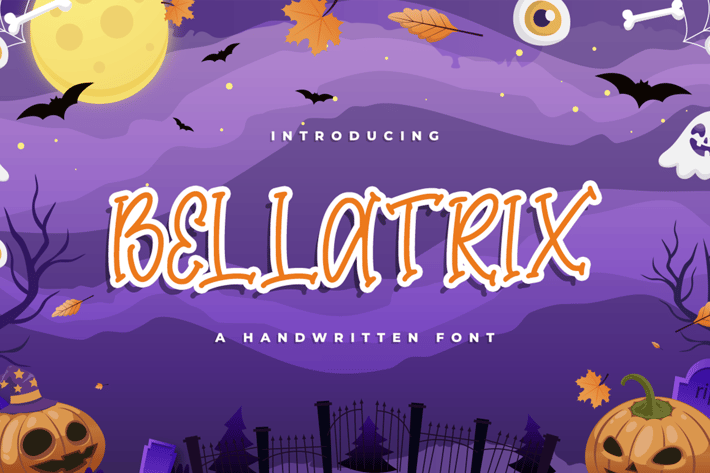
Bellatrix - Halloween Font
Bellatrix is a quirky and incredibly unique display font. Add it to your creative ideas and notice how it makes them stand out!